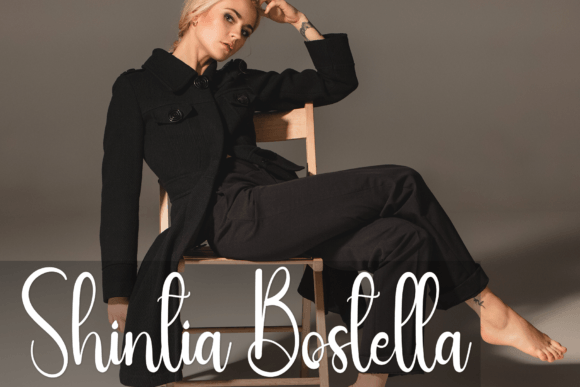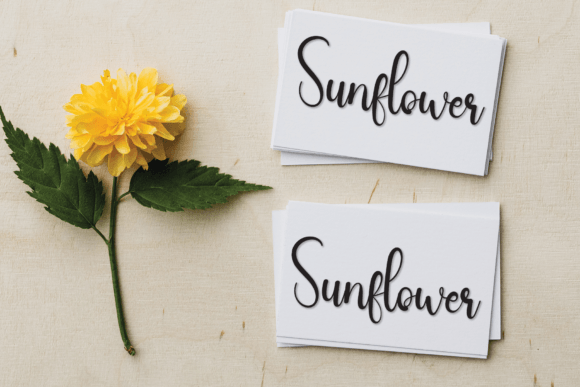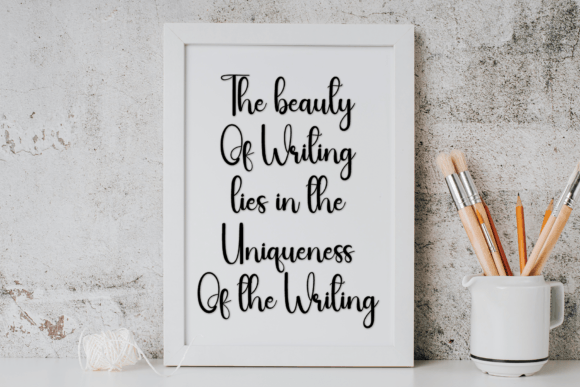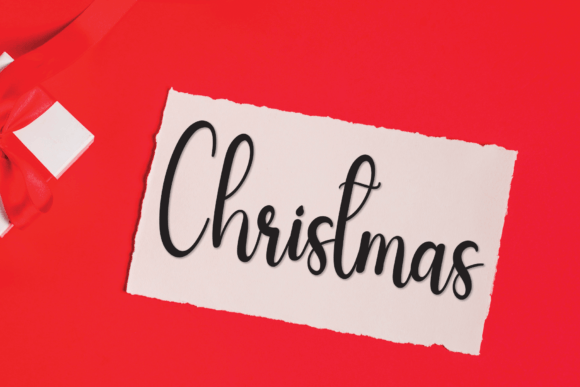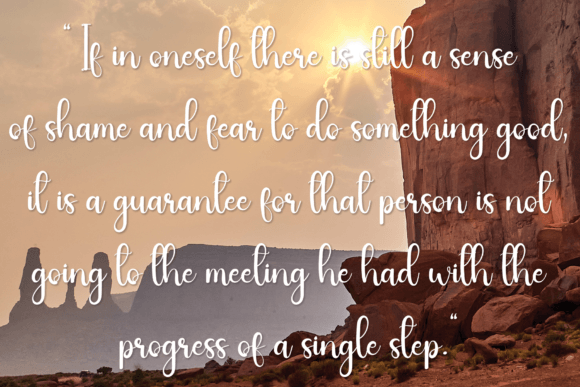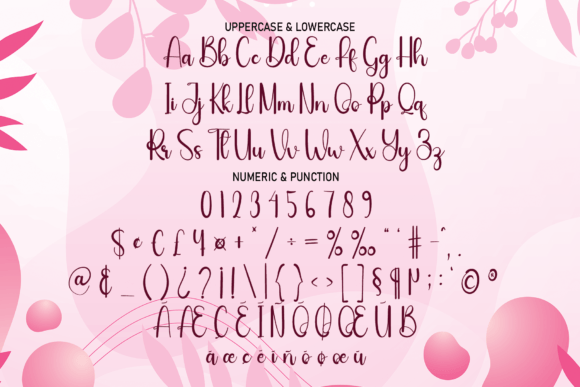
Introduction to Feminine Font
Feminine is a cursive and beautifully flowing script font.
Its latest style letters are perfect for wall displays, wedding invitations, social media post logos, advertisements, product packaging, product designs, labels, photography, watermarks, invitations, stationery, and any project that requires handwriting .
Key Features of Feminine Font